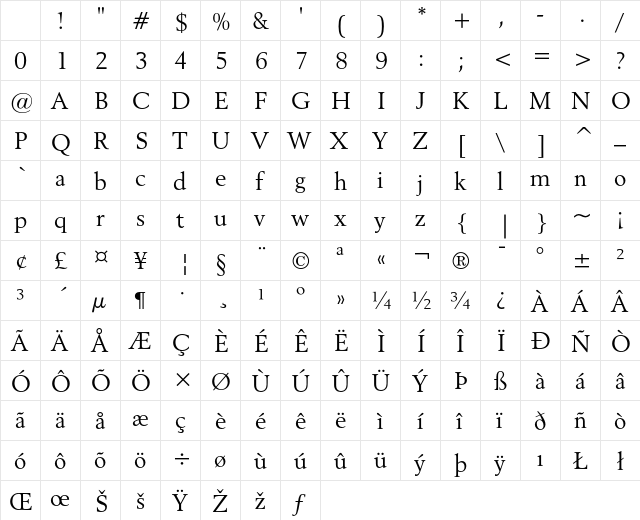
Revival 565 Regular
Revival 565 Family
Design Context for Revival 565
Revival 565 is a composed and adaptable typeface that performs quietly and consistently across a wide range of design contexts.